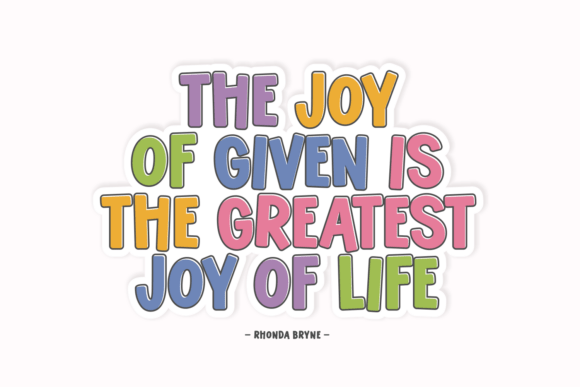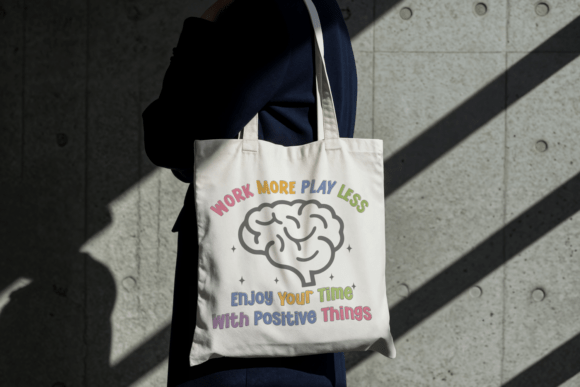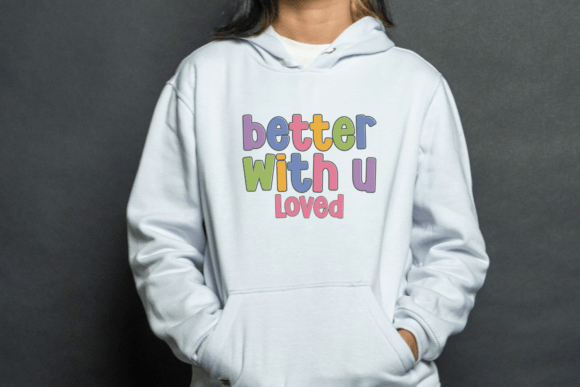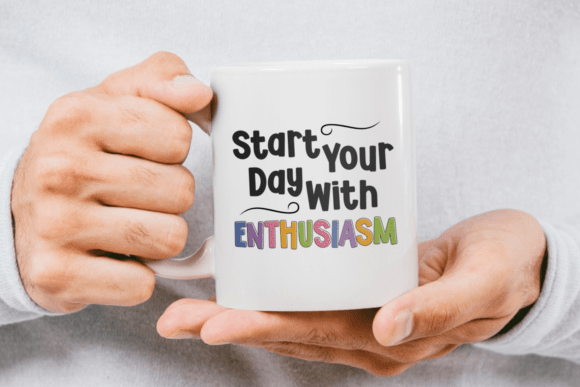
Introduction to Hayble Thaky Font
Inject a burst of energy and joy into your creative projects with Hayble Thaky, a vibrant playful display font designed to stand out.
This typeface features bold, chunky letterforms with a soft, rounded aesthetic that feels modern and approachable Its friendly silhouette makes it an exceptional choice for sticker designs, childrenโ€™s apparel, bold social media headlines, and eye-catching product packaging.